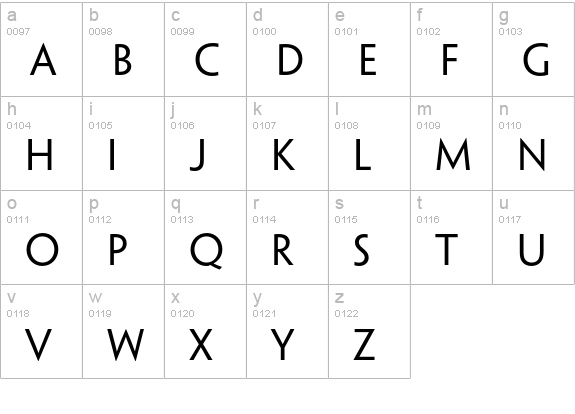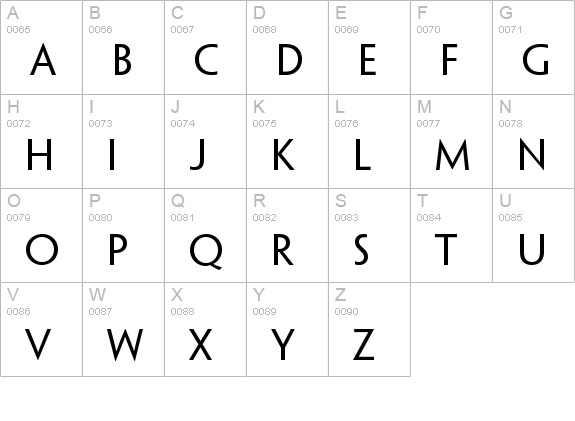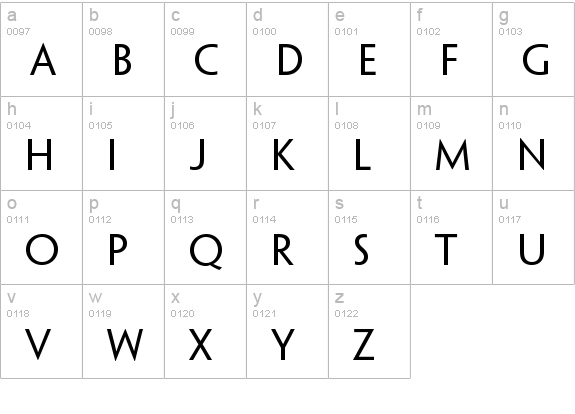
Penumbra Sans Std Font Details
Penumbra Sans Std is a versatile and elegant font that exudes modernity and sophistication. With its clean lines and balanced proportions, this typeface is perfect for a wide range of design projects, from branding and advertising to editorial layouts and web design. What sets Penumbra Sans Std apart is not only its aesthetic appeal but also its accessibility. This font is freely available to download at FontsMarket.com, making it an ideal choice for designers who are looking for a high-quality font without breaking the bank. Designed with legibility in mind, Penumbra Sans Std ensures that your message is easily conveyed to your audience. Its well-defined letterforms and ample spacing contribute to a comfortable reading experience, whether it's in print or on screen. The versatility of Penumbra Sans Std is evident in its extensive range of weights and styles, allowing you to experiment with different typographic treatments to achieve the desired effect. Whether you're aiming for a bold headline or a subtle body text, this font has got you covered. With its timeless appeal and wide range of applications, Penumbra Sans Std is a must-have for any designer's toolkit. Its clean yet expressive design will elevate your projects and catch the eye of your audience. Don't miss out on the opportunity to enhance your designs with this exceptional font, available for free at FontsMarket.com.